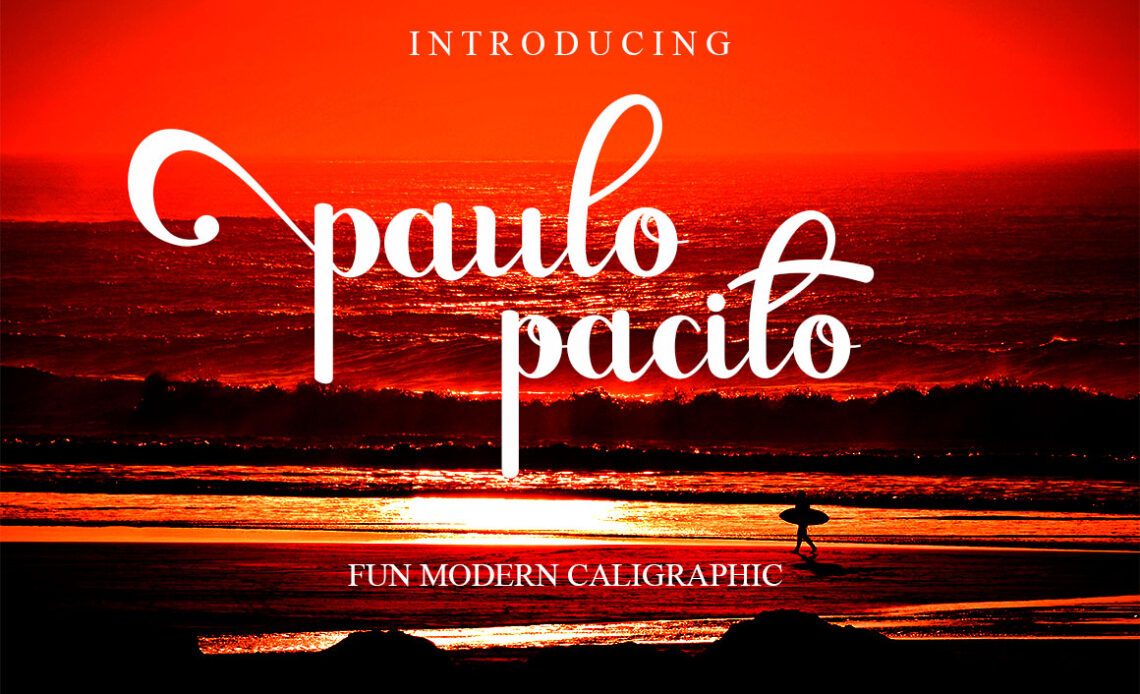
Behold, the enchanting Paulo Pacito Font, a script font family that exudes romanticism and freshness, ready to captivate your designs! Crafted by the skilled hands of Haksen, this font is a visual symphony, a seamless blend of elegance and modernity.
With its graceful curves and striking contrasts, the Paulo Pacito Font dances across your designs, adding a touch of sophistication and charm. Its handwritten style evokes a sense of authenticity and warmth, inviting your audience into a world of timeless beauty. Whether you're crafting wedding invitations, creating eye-catching logos, or designing social media posts, the Paulo Pacito Font is your perfect companion, transforming your creations into masterpieces.
Step into a world of endless possibilities with the Paulo Pacito Font. Its versatility knows no bounds, allowing you to create designs that resonate with your unique style. From vintage-inspired projects to contemporary masterpieces, this font adapts effortlessly, adding a touch of elegance to every endeavor.
Unleash your creativity and let the Paulo Pacito Font guide you on a journey of self-expression. Its beautiful curvature and contrast make it an ideal choice for both modern and retro designs, allowing you to effortlessly blend the past and the present. Create stunning posters that transport your audience to another era, or design modern logos that exude a timeless charm.
But the Paulo Pacito Font is more than just a beautiful typeface; it's an extension of your personality. Whether you're a seasoned designer or just starting your creative journey, this font will enhance your projects with a touch of magic. Experience the joy of creating designs that speak to your soul, designs that leave a lasting impression and make a statement.
With the Paulo Pacito Font, you hold the key to unlocking a world of design possibilities. Its beauty, versatility, and emotional depth will transform your creative endeavors, leaving your audience spellbound. Embrace the magic of this font and embark on a journey of self-expression that knows no limits.